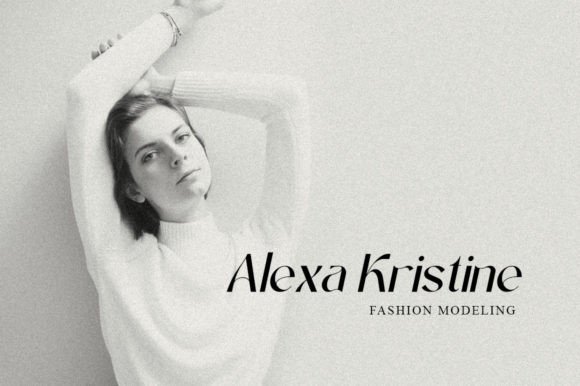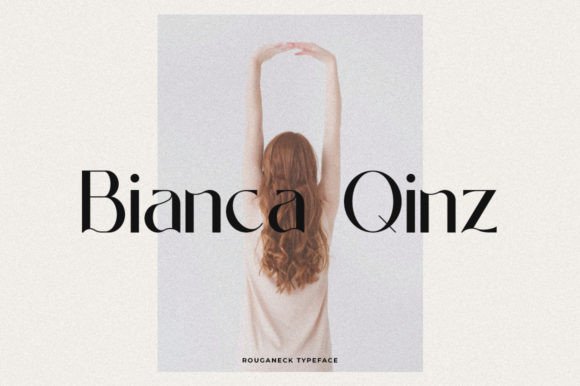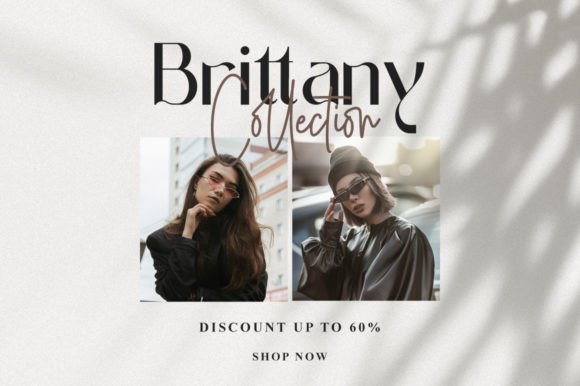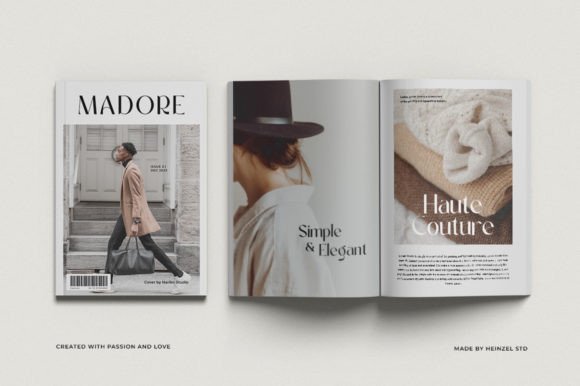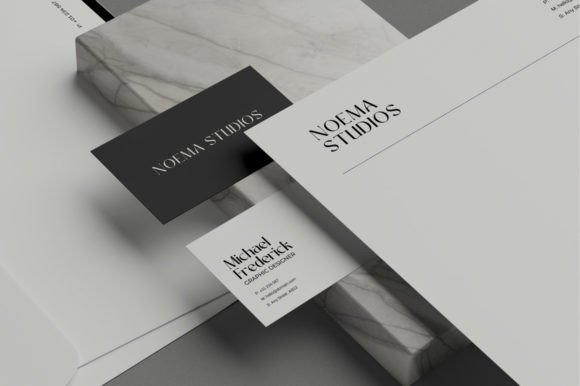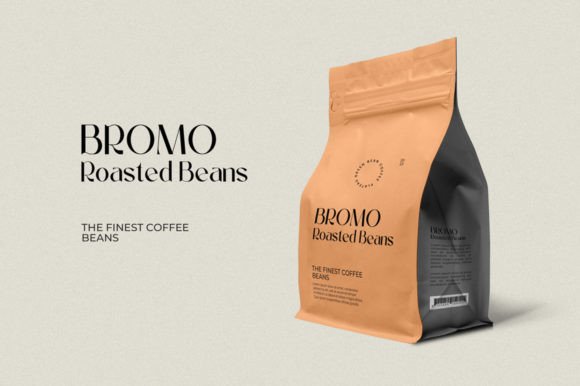
Introduction to Rouganeck Font
Rouganeck is an elegant and modern sans serif font.
Fall for its ravishing style and use it to create gorgeous wedding invitations, logos, branding, headlines, beautiful stationary art, eye-catching social media posts, websites, and much more .
Key Features of Rouganeck Font